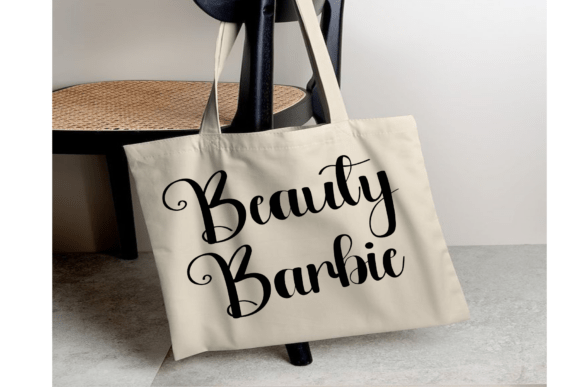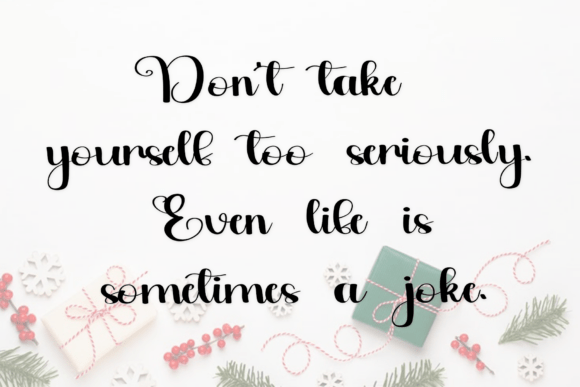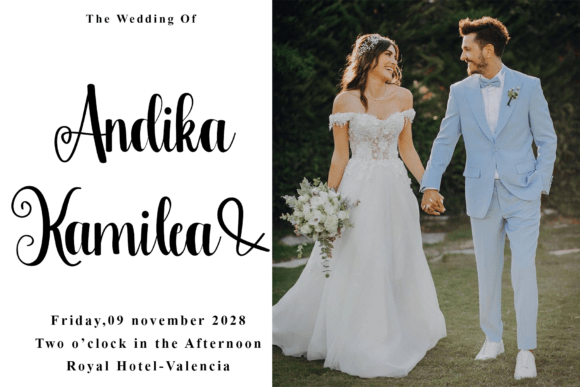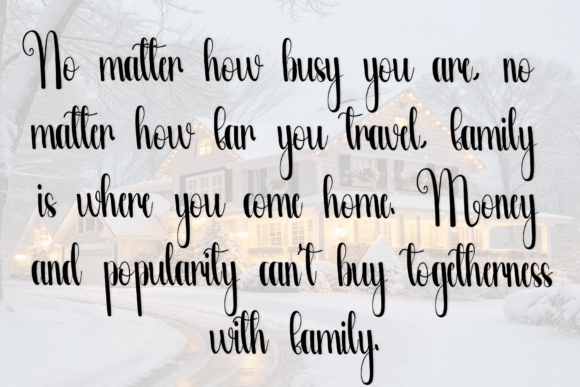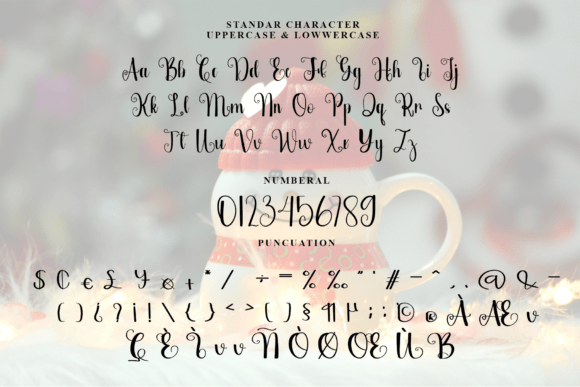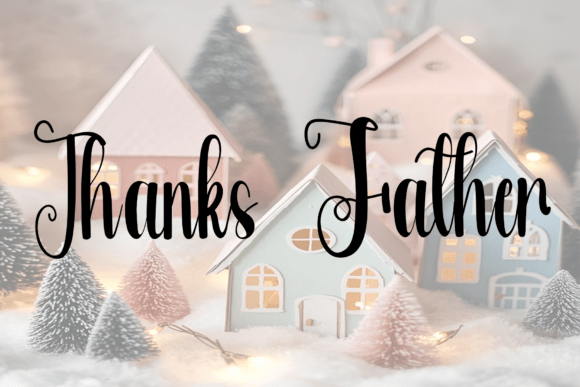
Introducing Christmas House Font: Elevate Your Designs with Elegance
Are you looking for a font that exudes luxury, sophistication, and a touch of elegance? Look no further than Christmas House Font, a beautifully flowing and modern handwritten script font. This stunning typeface is perfect for designers and crafters seeking to add a personal touch to their projects. With its smooth, generous curves and graceful, elongated strokes, Christmas House Font is sure to elevate your designs to the next level.
What Makes Christmas House Font So Special?
Christmas House Font boasts a unique and sophisticated signature look that is perfect for a variety of design applications. Its flowing script and elegant strokes evoke a sense of luxury and refinement, making it ideal for:
- Personal branding: Create a lasting impression with a font that reflects your personality and style.
- Photography watermarks: Add a touch of elegance to your photos with a subtle yet distinctive watermark.
- Luxury wedding stationery: Make your wedding invitations, programs, and other stationery truly unforgettable.
- Editorial design: Add a touch of sophistication to your magazine articles, blog posts, and other written content.
- Any project requiring a sweeping, authentic, and naturally luxurious touch: From packaging design to advertising, Christmas House Font is the perfect choice.
Key Features of Christmas House Font
So, what sets Christmas House Font apart from other fonts? Here are some of its key features:
- Smooth, generous curves: Christmas House Font features smooth, flowing curves that give it a luxurious and elegant feel.
- Graceful, elongated strokes: The font’s elongated strokes add a touch of sophistication and refinement to your designs.
- Unique and professional: Christmas House Font is a one-of-a-kind typeface that will help you stand out from the crowd.
- Handwritten script: The font’s handwritten script gives it a personal and authentic touch.
How to Use Christmas House Font in Your Designs
Using Christmas House Font in your designs is easy. Here are a few tips to get you started:
- Pair it with a sans-serif font: Combine Christmas House Font with a clean sans-serif font for a striking contrast.
- Use it as a headline font: Christmas House Font is perfect for headlines, titles, and other prominent text elements.
- Add it to your branding materials: Use Christmas House Font in your logos, business cards, and other branding materials for a consistent look.
- Experiment with different colors and textures: Try pairing Christmas House Font with different colors and textures to create a unique look.
Why Designers and Crafters Love Christmas House Font
Christmas House Font has quickly become a favorite among designers and crafters. Here’s why:
- Easy to read: Despite its elegant and flowing script, Christmas House Font is surprisingly easy to read.
- Versatile: The font can be used in a wide range of design applications, from luxury branding to editorial design.
- Unique: Christmas House Font is a one-of-a-kind typeface that will help you stand out from the crowd.
- High-quality: The font is professionally designed and crafted with attention to detail.
In conclusion, Christmas House Font is a beautifully flowing and elegant modern handwritten script font that is perfect for designers and crafters seeking to add a touch of luxury and sophistication to their projects. With its smooth, generous curves and graceful, elongated strokes, this font is sure to elevate your designs to the next level. Whether you’re looking to create a personal brand, design luxury wedding stationery, or add a touch of elegance to your editorial design, Christmas House Font is the perfect choice.